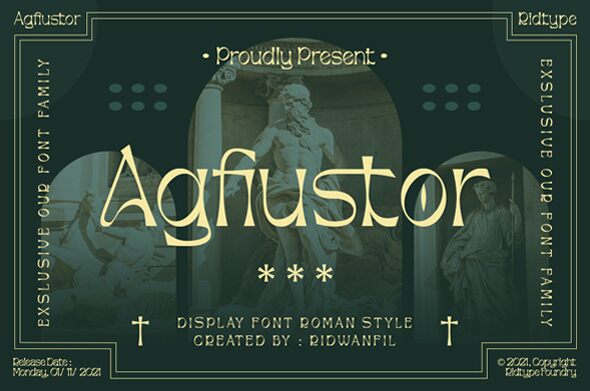
Agfiustor Free
Agfiustor is the perfect font for any project that needs a touch of vintage charm. Designed by Ridtype, this display font boasts a retro style that adds character and personality to any design. The semi-light weight gives it a delicate feel, making it ideal for headlines or titles. Whether you're designing a poster, logo, or website, Agfiustor's unique aesthetic is sure to catch the eye of your audience. Pair it with bold colors and playful graphics for an unforgettable look. Let Agfiustor bring your designs to life and transport your audience back in time!